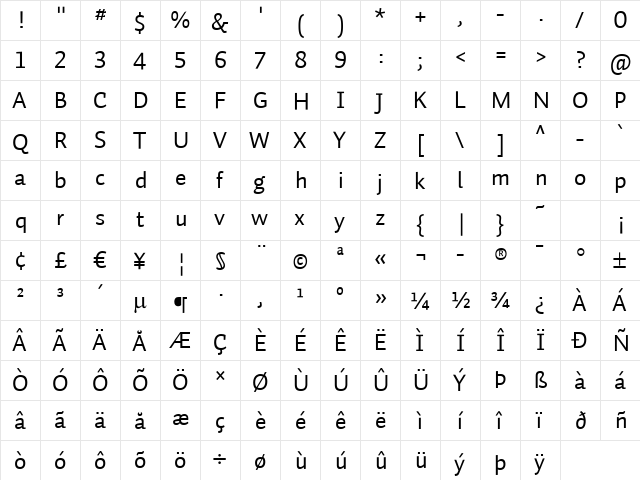
Auto 2 Regular LF
Design Context for Auto 2 Typeface
Auto 2 offers clean, dependable letterforms without strong stylistic allegiance, making it a practical choice for designers who need flexibility.
Pro Tip: Pair Auto 2 with a font of contrasting weight or personality to build a more expressive typographic hierarchy.